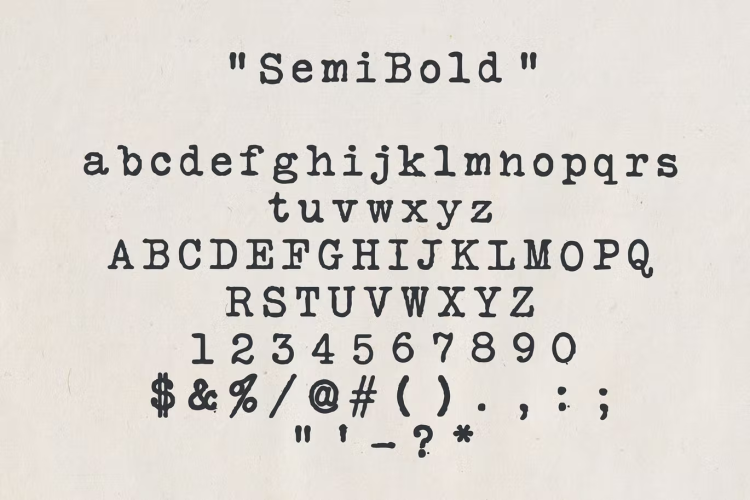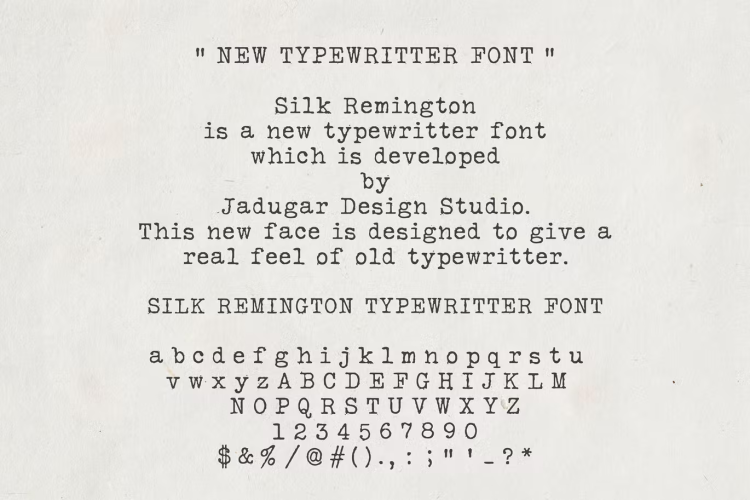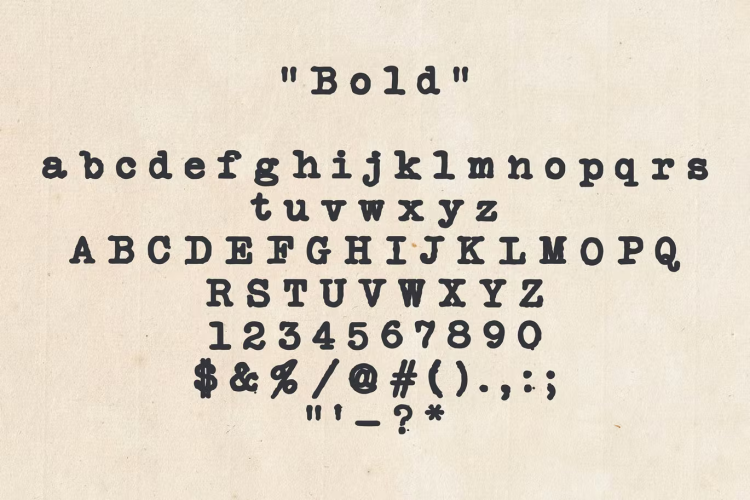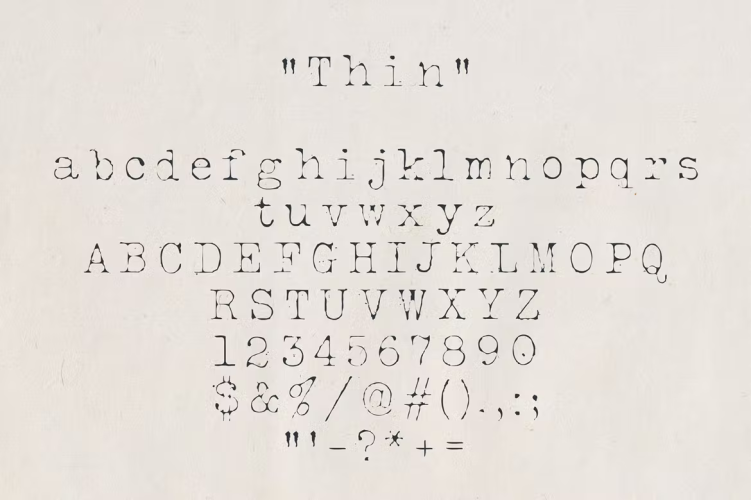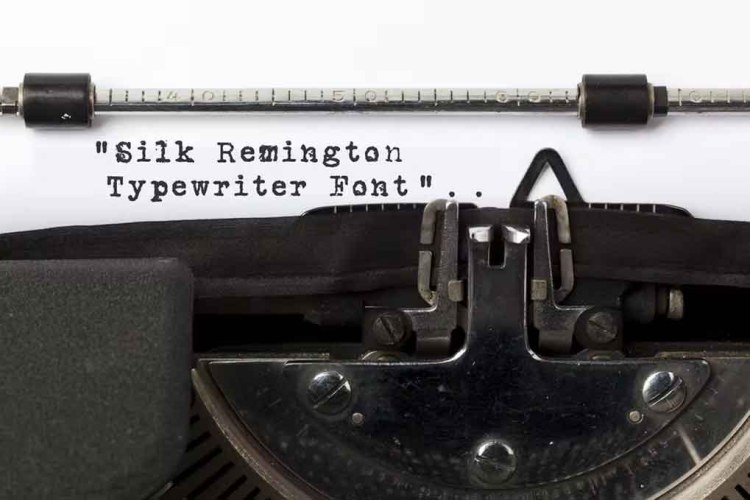
Silk Remington Font
” NEW TYPEWRITER FONT “
Silk Remington is a new typewriter font which is developed by Jadugar Design Studio. This new face is designed to give a real feel of old typewriter. Seven styles
Where Silk Remington Font works best
Reports, white papers and book interiors hold the eye longer when the text face has real serifs; Silk Remington Font keeps that rhythm without looking old-fashioned.
Food, spirits and cosmetics brands lean on serif wordmarks to suggest age and care. Silk Remington Font gives that signal at wordmark size.
Set Silk Remington Font for the body of an award or a diploma and keep the recipient name in a script; the pairing is what makes a document feel official.
What kind of work does Silk Remington Font suit?
It sits in the Serif Fonts group and reads as bold, serif, serif fonts, typewriter. That makes it a candidate wherever those qualities help: headings, packaging, social graphics and brand work. Set it at the size you plan to use before deciding.